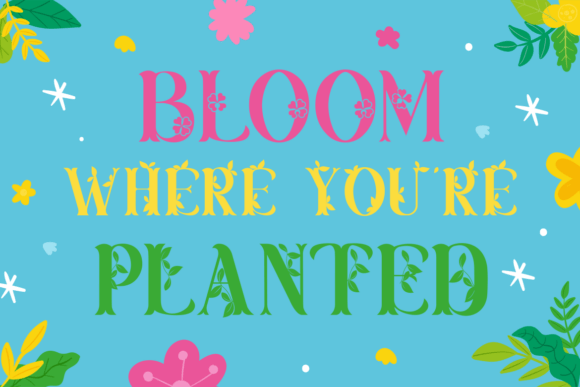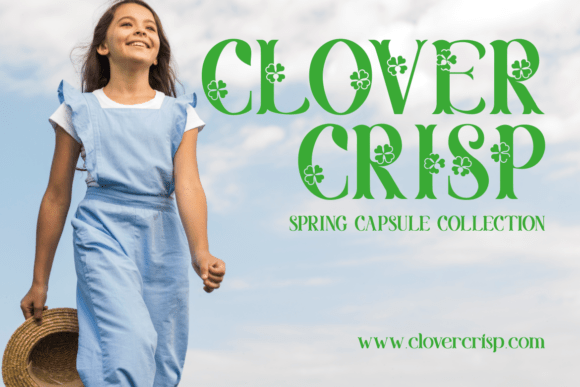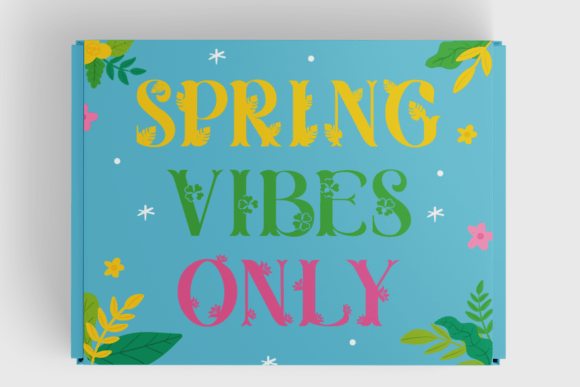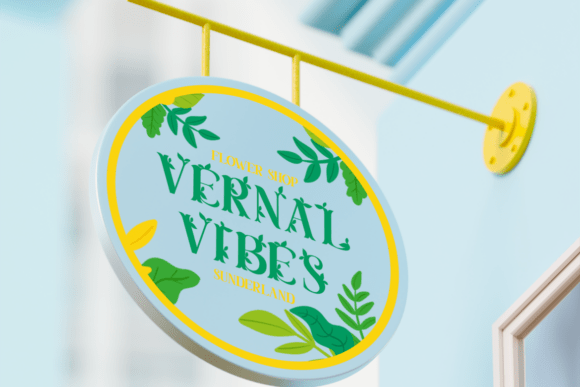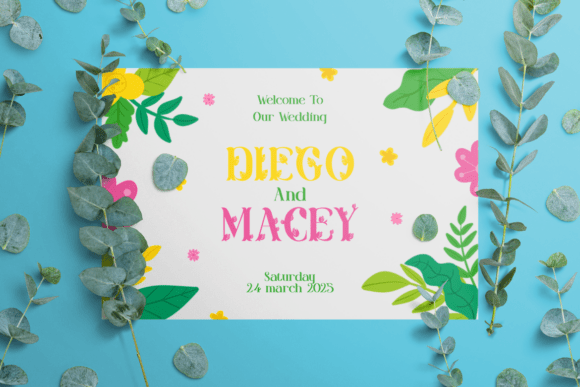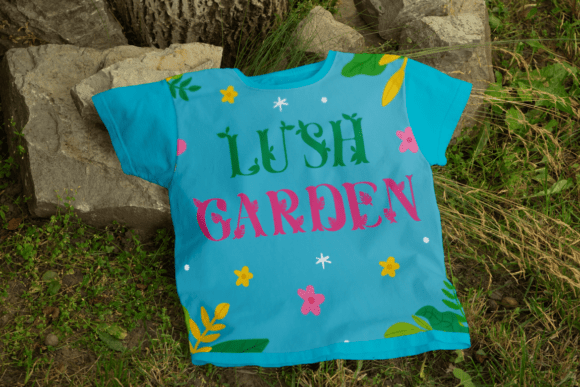
Introduction to Lush Garden Font
Lush Garden is a decorative spring-style font that captures the essence of nature, growth, and joyful energy.
Perfectly suited for cheerful branding, childrenโs designs, or seasonal campaigns, this font turns ordinary text into an expressive artwork Its playful, quirky vibe is balanced by refined legibility, making it ideal for standout headlines and creative compositions.